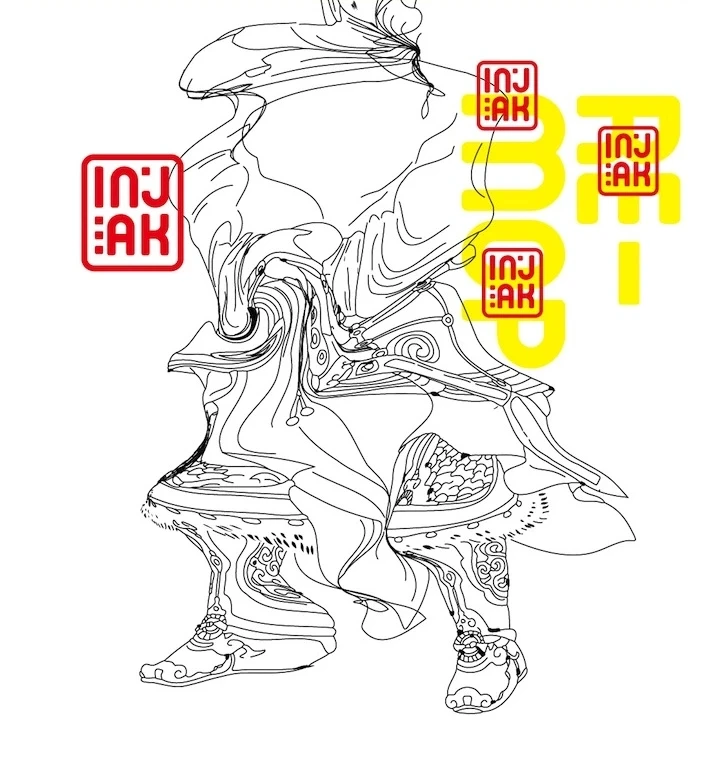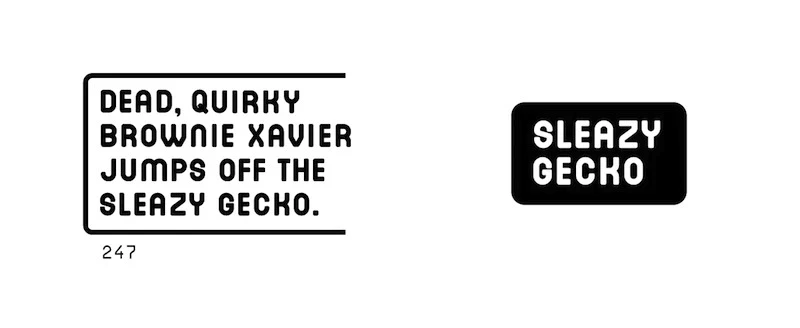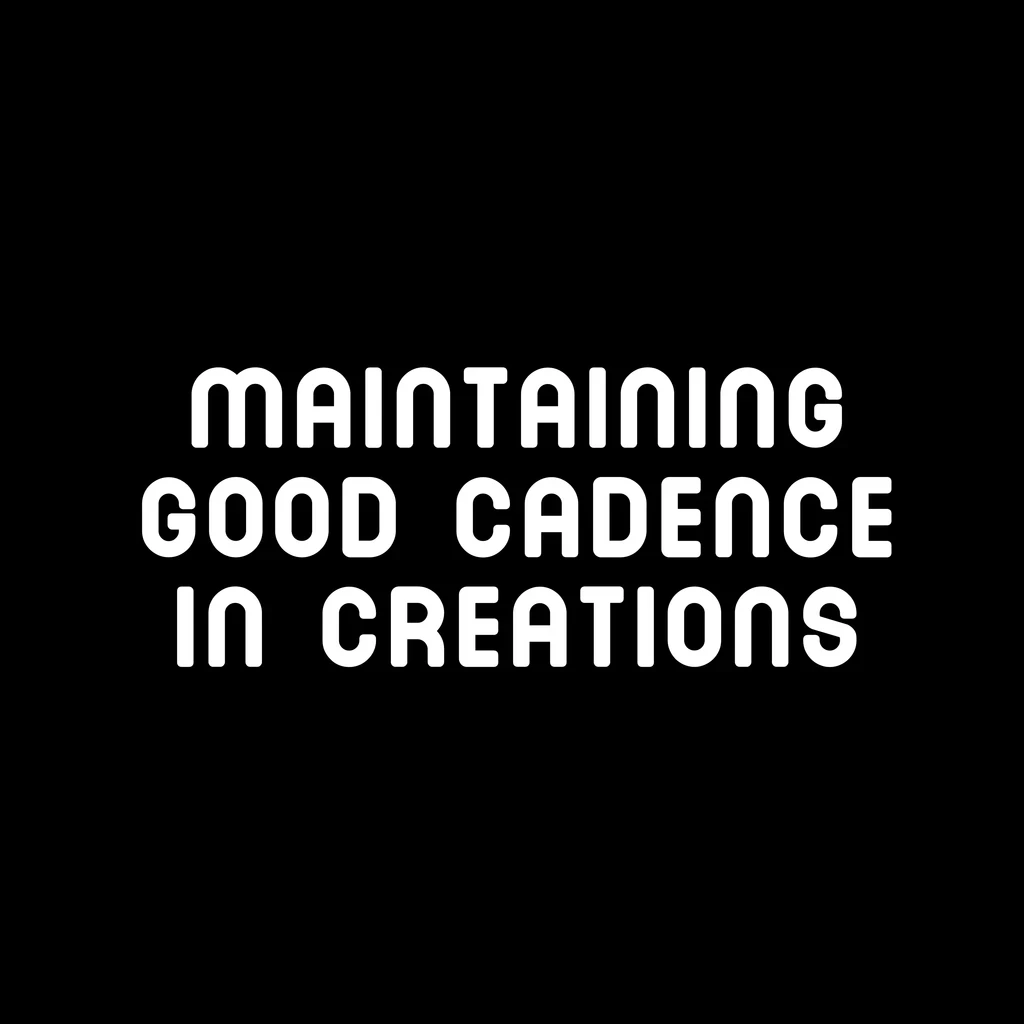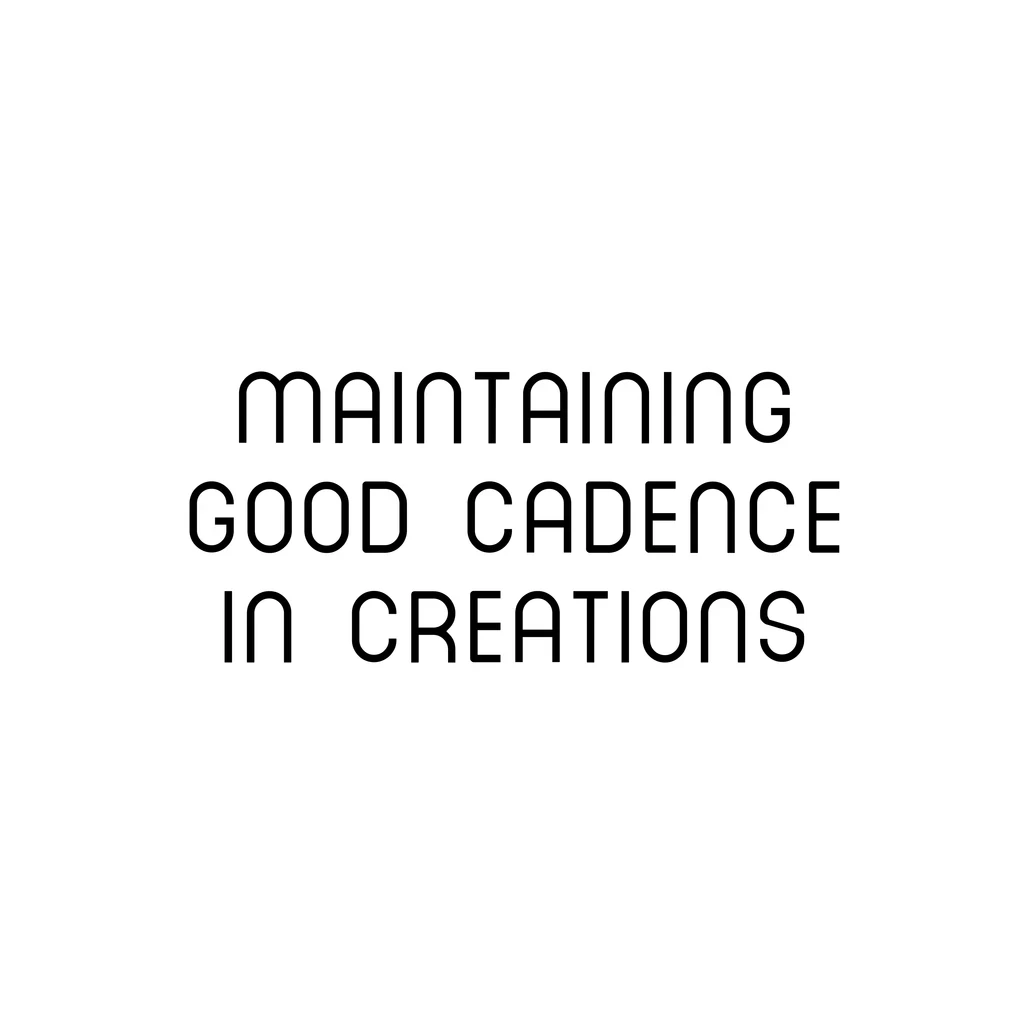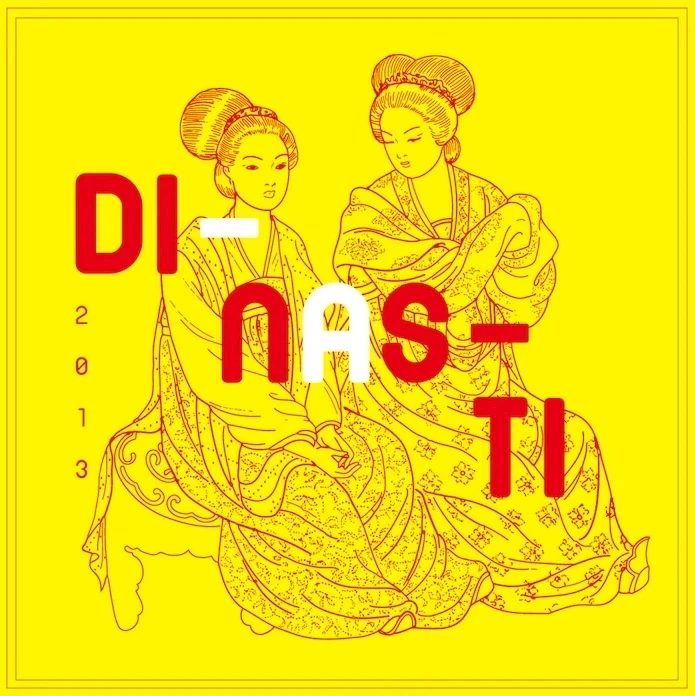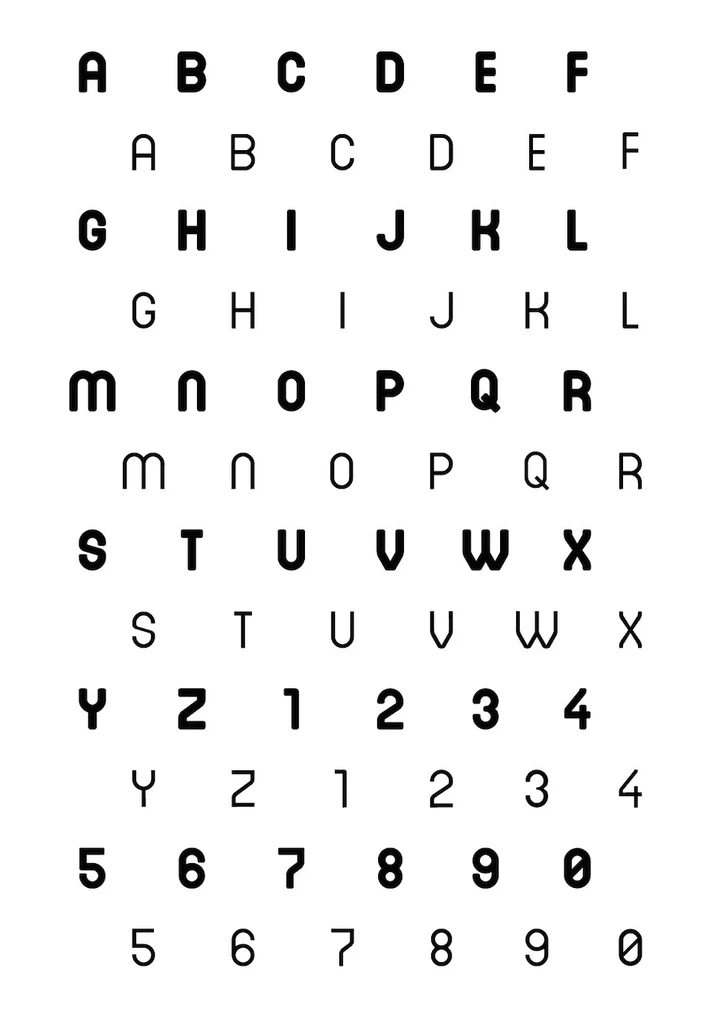
Font: DINASTI
Rounded all-caps sans-serif typeface made by MEK.txt.
A completely free to use typeface for commercial or personal purpose. “Dinasti” is a rounded-style sans-serif typeface. Available in two weights.